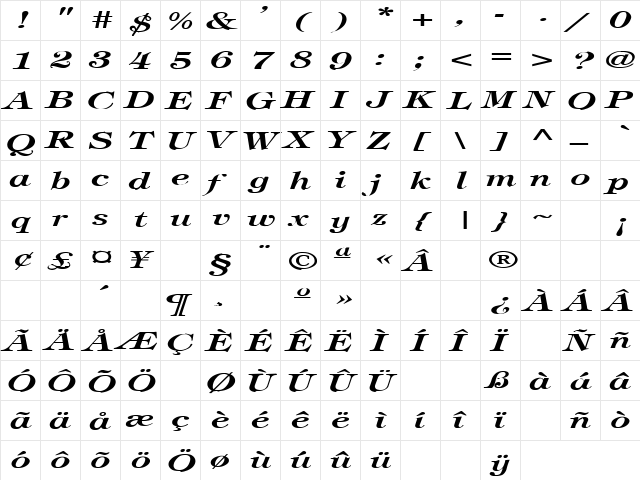
Stratton 3 Regular
Design Context for Stratton 3 Typeface
Stratton 3 is a composed and adaptable typeface that performs quietly and consistently across a wide range of design contexts.